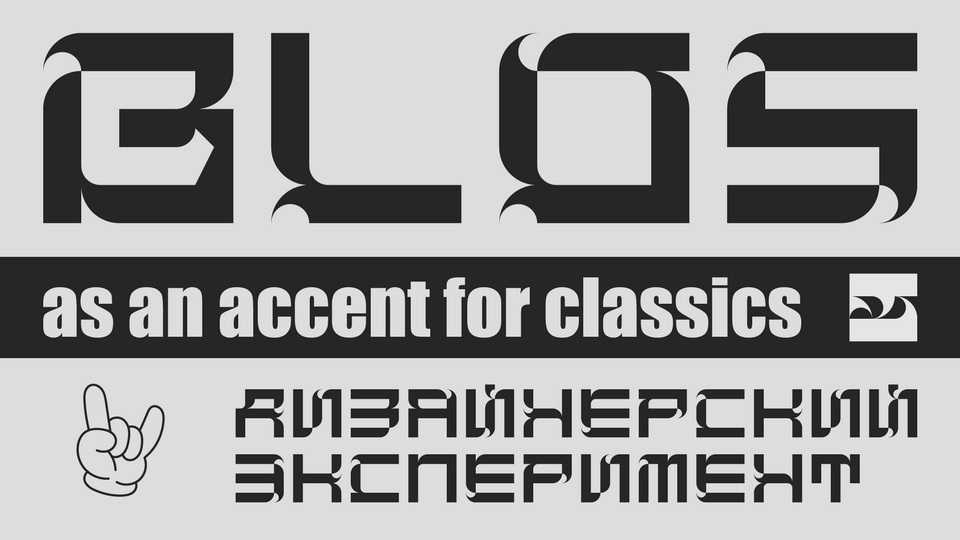
Download Blos font, an experimental modular monospaced display typeface that pushes the boundaries of typographic design with its block forms and futuristic aesthetic.